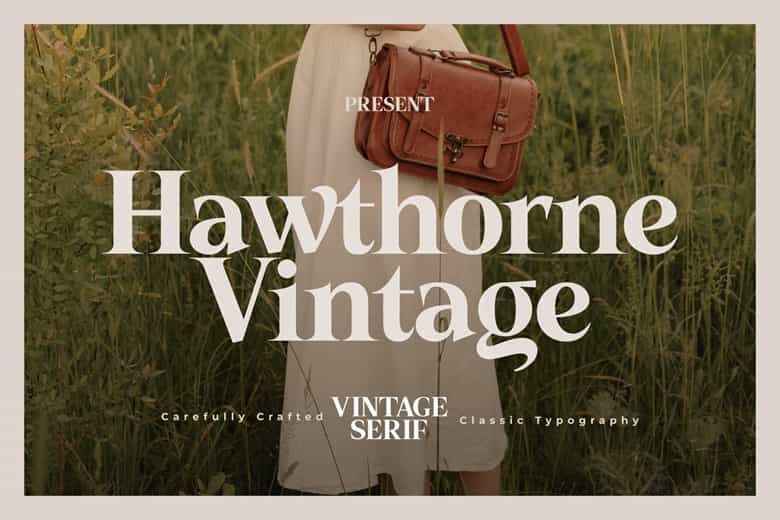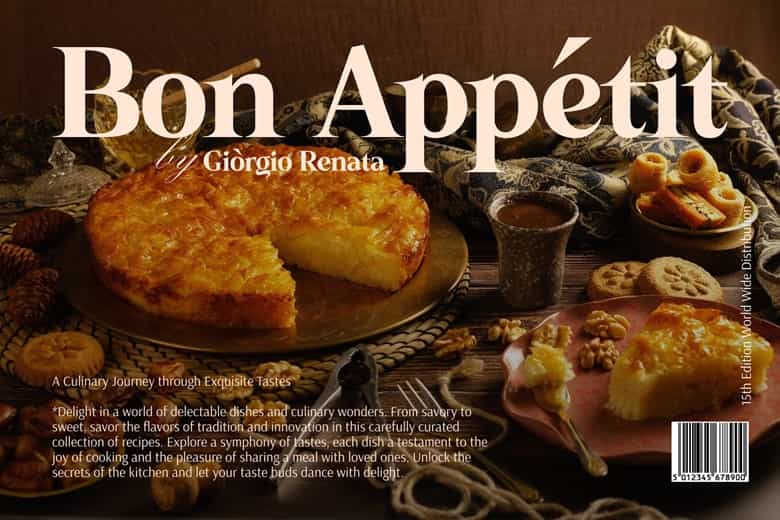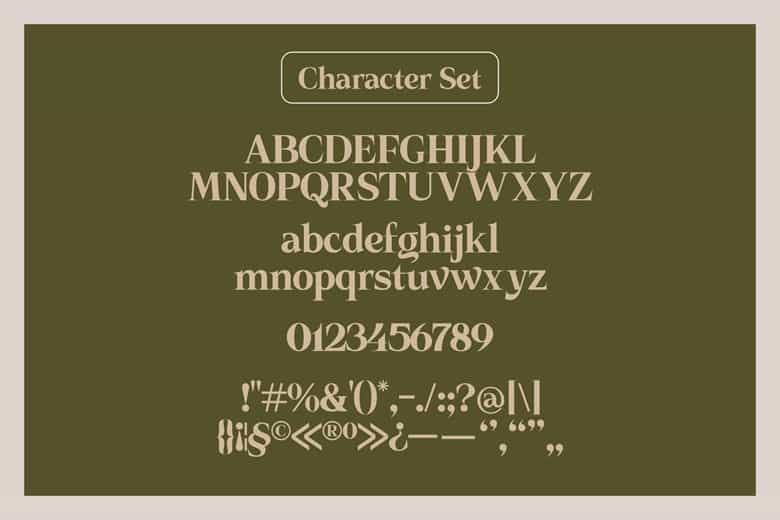
Hawthorne Vintage is a new serif typeface that tends to give a feeling of vintage and classicism with its each and every letter. Combining the old style serifs with the new age style this font brings the past right to your screen. Its sleek and elegant shape, fine detailing and understated serifs make it ideal for use in situations where a project requires some additional elegance.